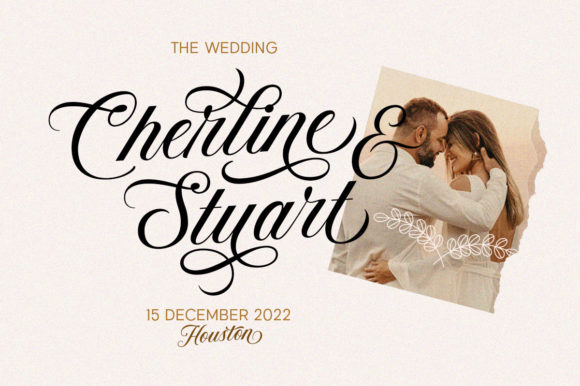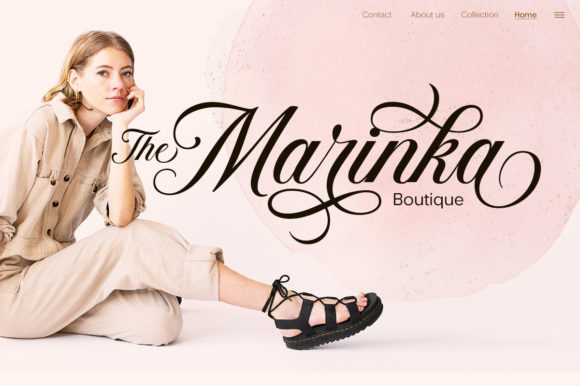
Marla Griselda Font
db-ku.com - Script & Handwritten -- Marla Griselda is a beautiful and classy script specially made to be applied on logos, invitations labels, logos, magazines, books, greeting/wedding cards, packaging, fashion, make-up, stationery, novels, labels, or any project with advertising purpose. Add it to any of your designs, and watch how they capture everyone’s attention!